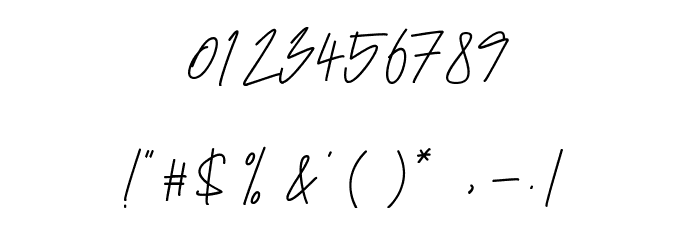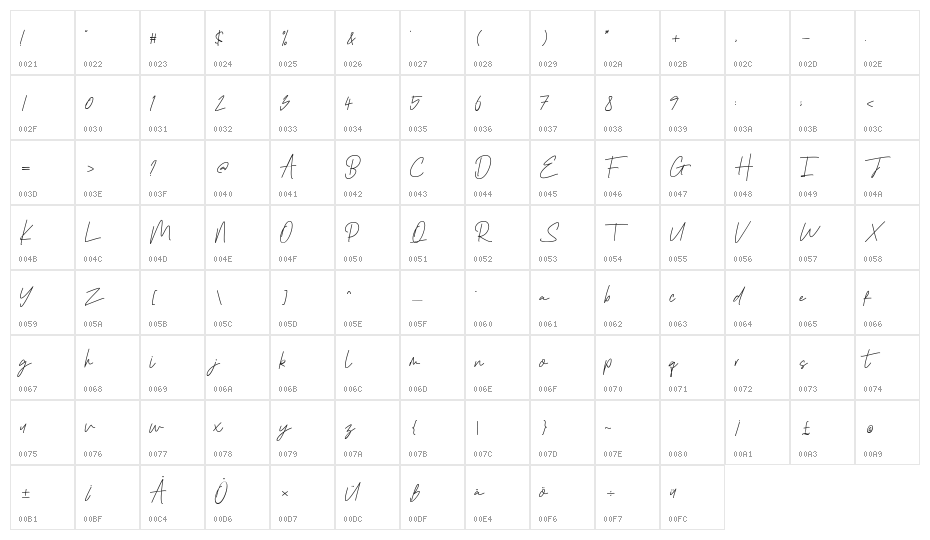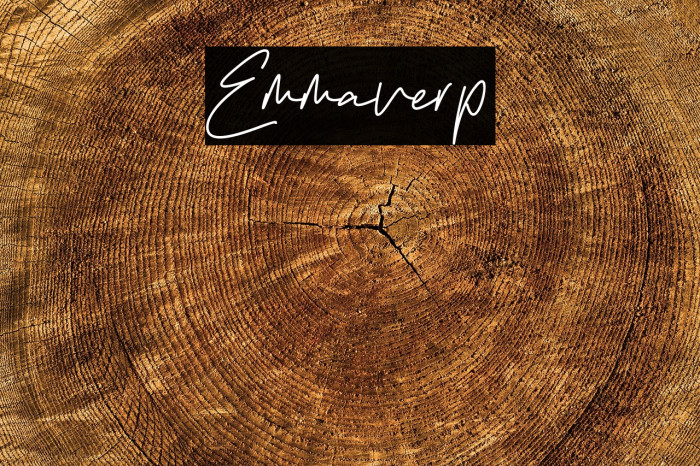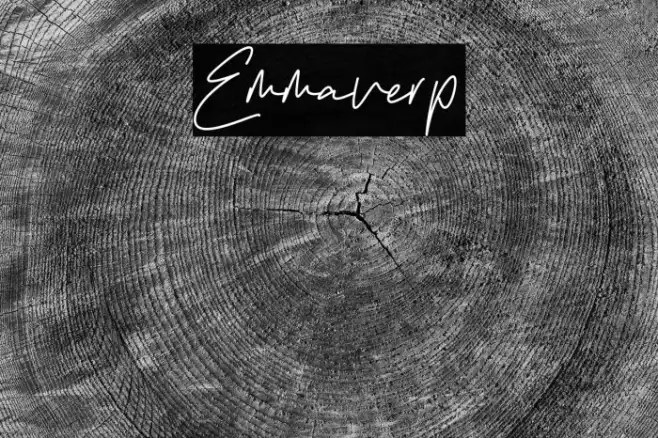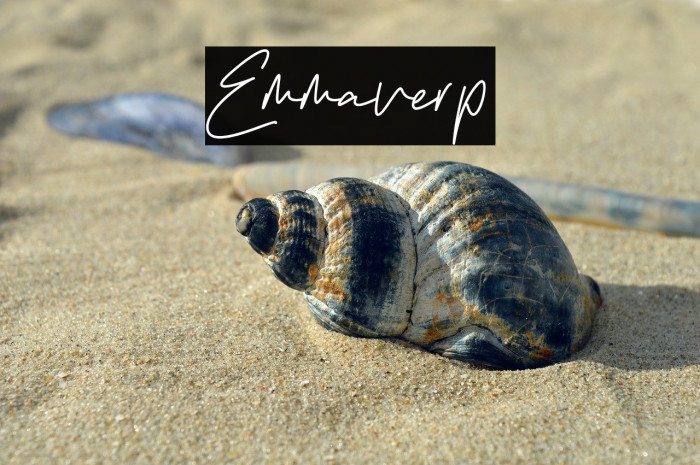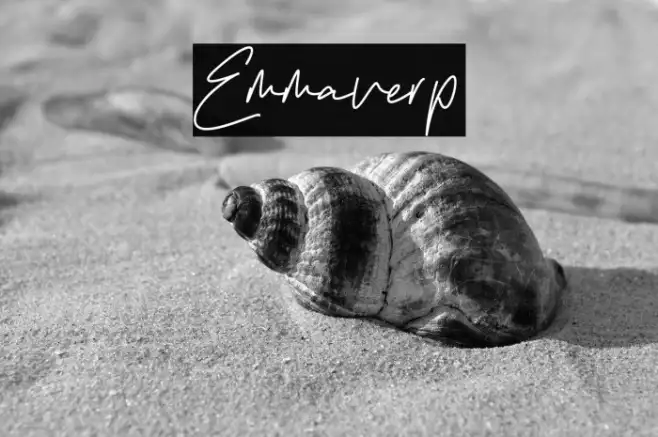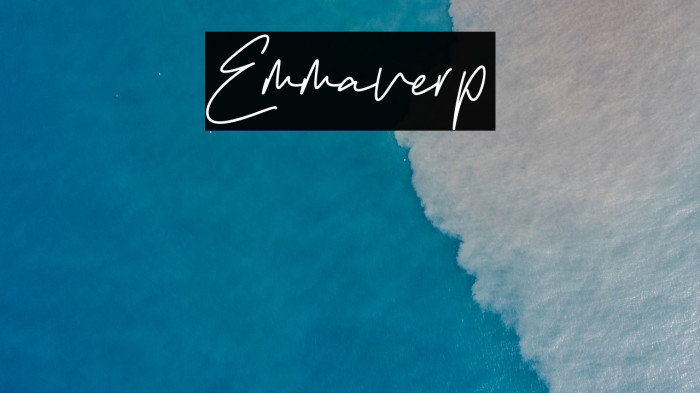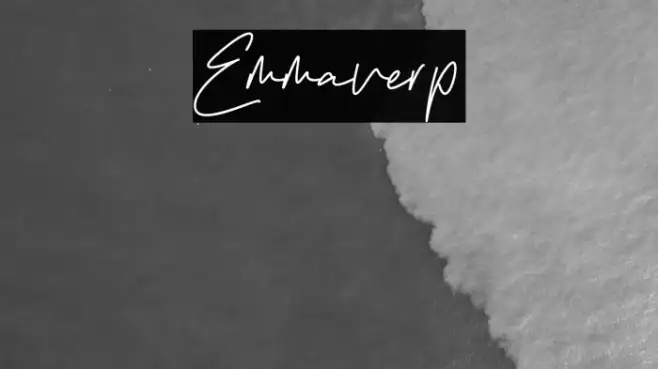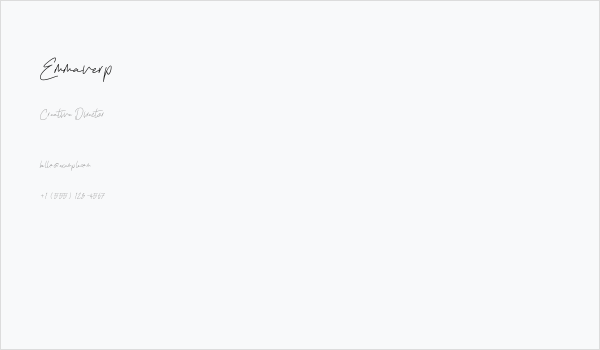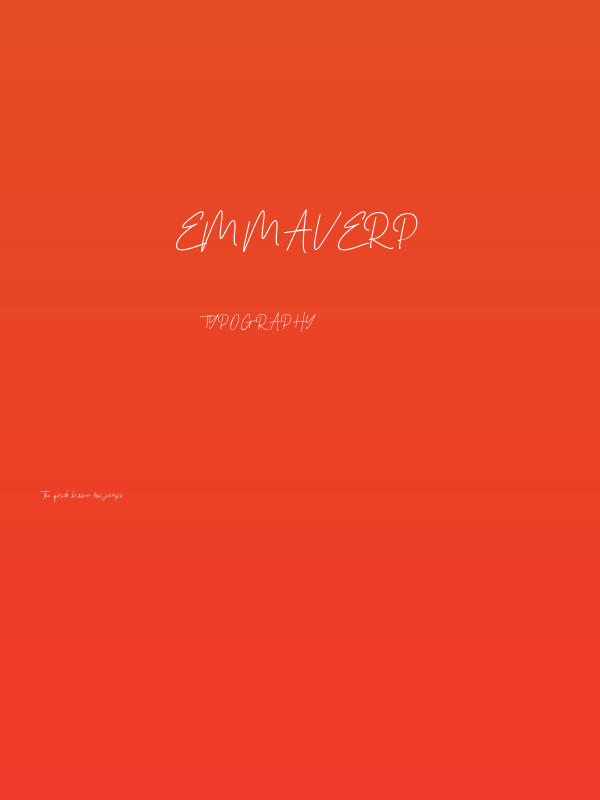
Emmaverp Font
Emmaverp Description
This font exudes a casual and personal touch, reminiscent of handwritten notes. The letters are fluid and connected, giving an impression of natural handwriting. The strokes are smooth and slightly irregular, adding to the authenticity and charm of the style. The uppercase letters maintain a consistent height, while the lowercase letters vary slightly, enhancing the handwritten feel. The numerals and special characters are crafted with the same flowing style, ensuring uniformity across all characters. This font is ideal for projects that require a personal or informal tone, such as invitations, greeting cards, or personal branding.
| Overall Style | Casual, Personal |
| Use Case | Logos, Invitations, Personal notes |
| Proposed Projects | Ideal for invitations, greeting cards, personal branding, and informal communications. |